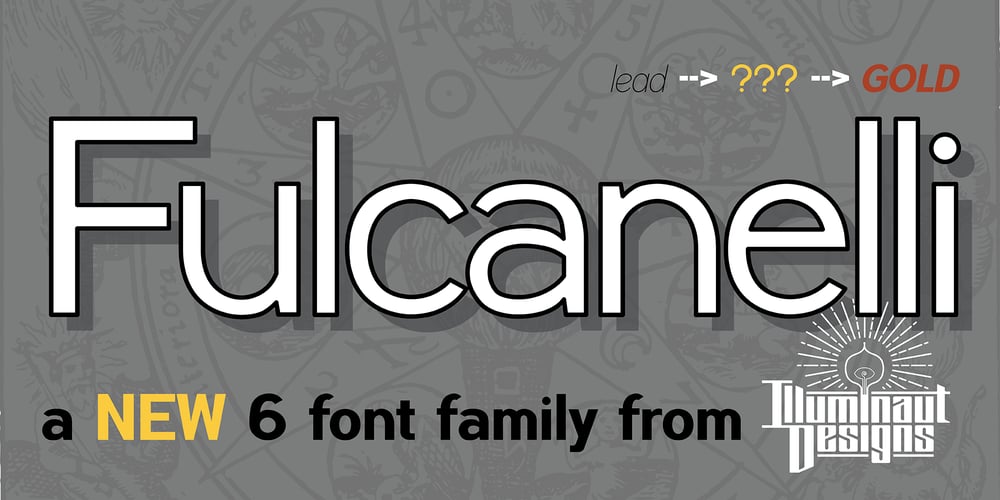
Fulcanelli
Fulcanelli font
Fulcanelli Font Family was designed by Jesse Smith and published by Illuminaut Designs. Fulcanelli contains 6 styles and family package options. A clean and balanced humanist grotesque. Like many an alchemical process, this font had to be designed and redesigned from the ground up many times. Each time it blew up in the designer’s face until finally the conditions and process were in perfect alignment and this new font was born.